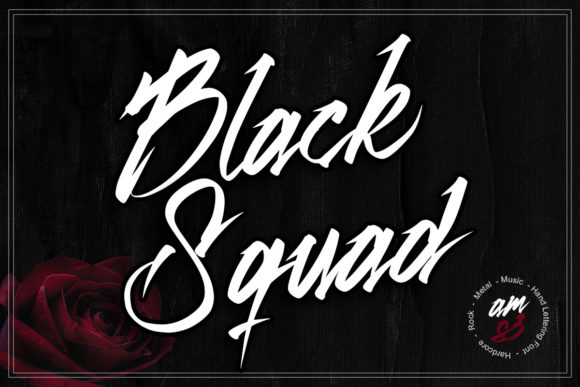
Black Squad Font: The Ultimate Choice for Metal and Rock Designs
In the world of graphic design, fonts play a crucial role in conveying the tone and style of a project. For music enthusiasts, particularly those in the rock and metal genres, finding the perfect font can be a daunting task. This is where the Black Squad font comes in – a script font specifically designed for rock, metal, hardcore, death metal, black metal music, and other themed designs.
What is Black Squad Font?
Black Squad is a symmetrical font that boasts a sharp and bold style, making it an ideal choice for designs that require a strong and edgy look. Its unique design elements are inspired by the metal and rock music scenes, ensuring that your designs resonate with fans of these genres.
The font’s sharp and bold style is not just aesthetically pleasing; it also ensures that your text stands out, making it perfect for posters, flyers, merchandise, and other visual materials.
Key Features of Black Squad Font
- Symmetrical Design: The font’s symmetrical design ensures that your text looks balanced and visually appealing.
- Sharp and Bold Style: The font’s sharp and bold style makes it perfect for designs that require a strong and edgy look.
- Script Font: As a script font, Black Squad offers a unique and artistic look that sets it apart from other fonts.
- Versatility: The font’s versatility ensures that it can be used for a variety of designs, from posters and flyers to merchandise and digital media.
Endless Possibilities with Black Squad Font
The Black Squad font offers endless possibilities for designers, artists, and music enthusiasts. Here are some ideas to get you started:
- Music Posters: Create eye-catching posters for concerts, festivals, and album releases.
- Merchandise: Design merchandise such as t-shirts, hoodies, and stickers that showcase your brand or music style.
- Digital Media: Use the font for digital media, including social media graphics, video titles, and website headers.
- Themed Designs: Explore various themed designs, including rock, metal, hardcore, death metal, and black metal.
Tips and Tricks for Using Black Squad Font
To get the most out of the Black Squad font, here are some tips and tricks:
- Pair with Other Fonts: Experiment with pairing Black Squad with other fonts to create a unique and visually appealing design.
- Adjust Font Size: Adjust the font size to ensure that your text is legible and visually appealing.
- Use Colors: Use colors that complement the font and add depth to your design.
- Experiment with Effects: Experiment with effects such as bold, italic, and strikethrough to add texture to your design.
In conclusion, the Black Squad font is an excellent choice for designers, artists, and music enthusiasts looking for a unique and bold font for their rock, metal, hardcore, death metal, black metal music, and other themed designs. Its symmetrical design, sharp and bold style, and versatility make it an ideal font for various projects. With its endless possibilities and ease of use, the Black Squad font is sure to become a staple in your design arsenal.